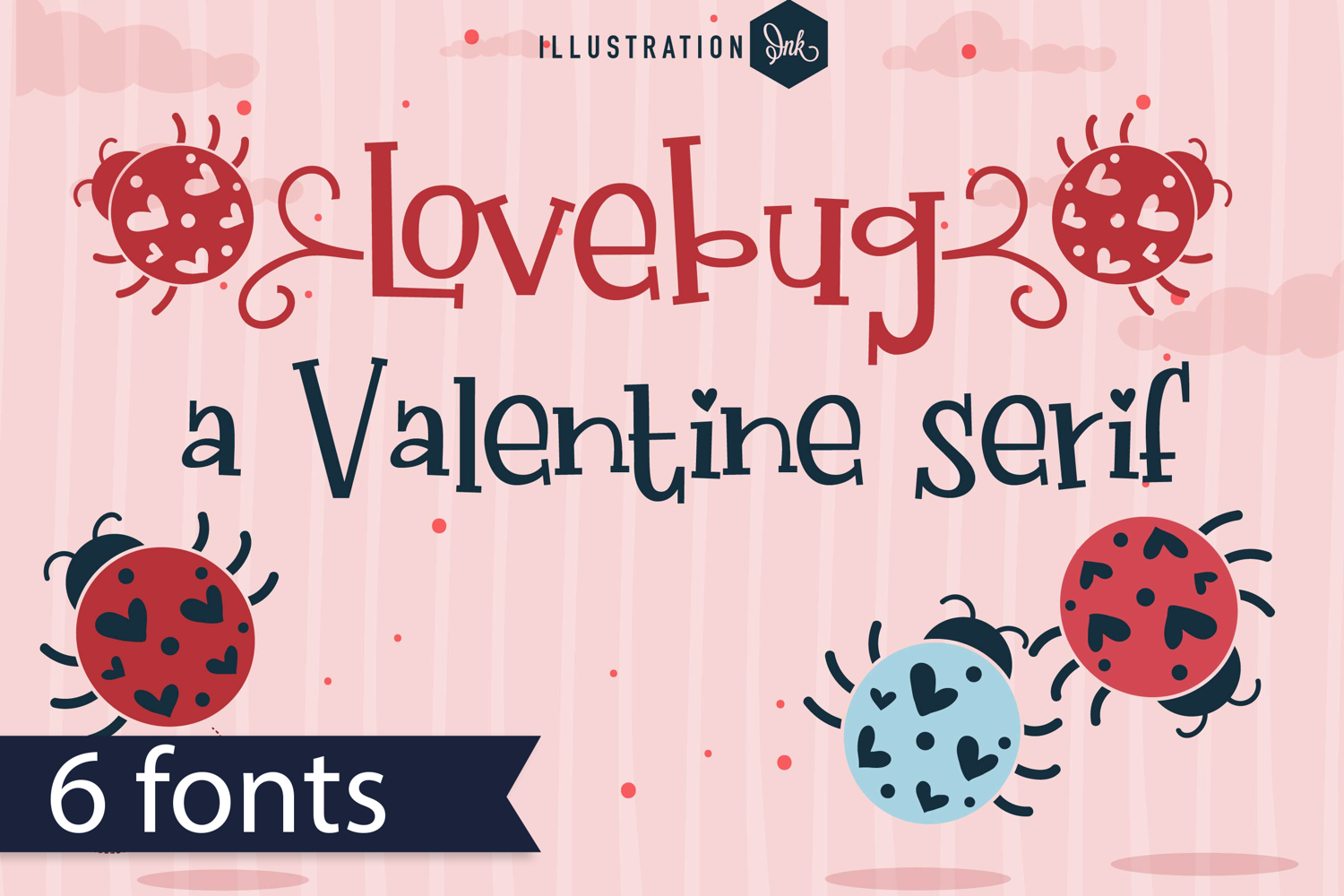
ZP Lovebug Font Family
This hand-crafted font is a whimsical, hand-written, print with a lovebug flourish that you can access by typing the greater than and less than glyphs. One family member sports lovebugs throughout. There are 6 variations included.